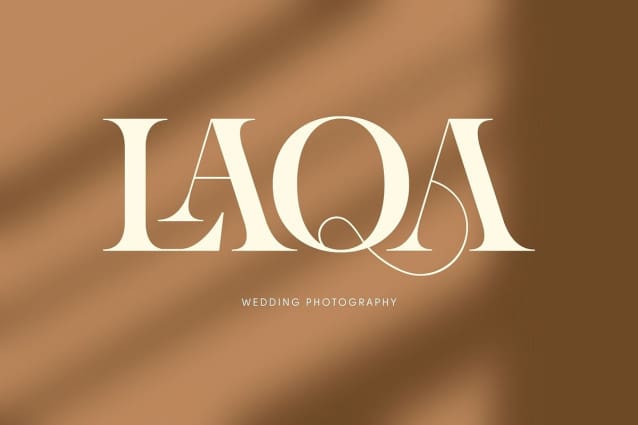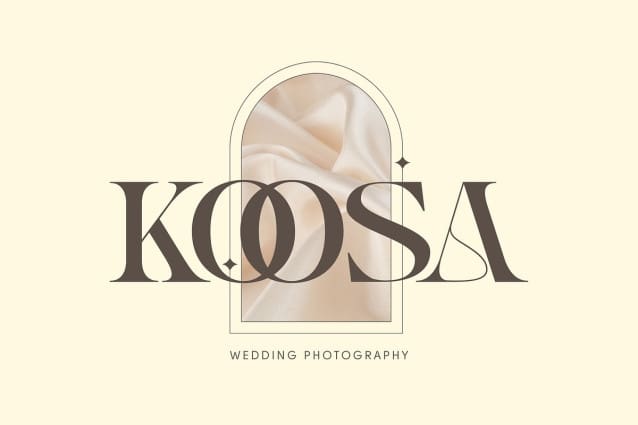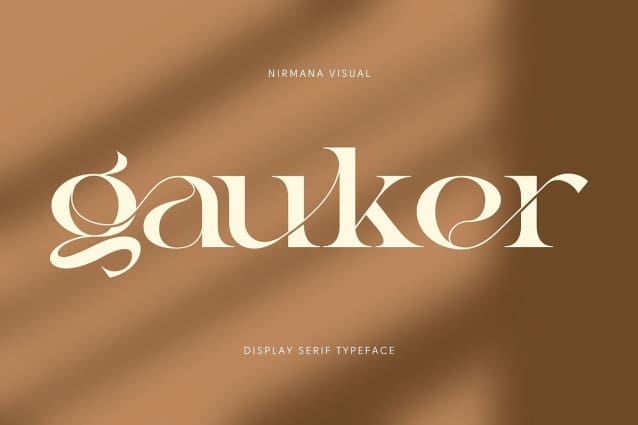
Gauker Font
Gauker Font – Serif Font offers beautiful typographic harmony for a diversity of design projects, including logos & branding, social media posts, advertisements & product designs.